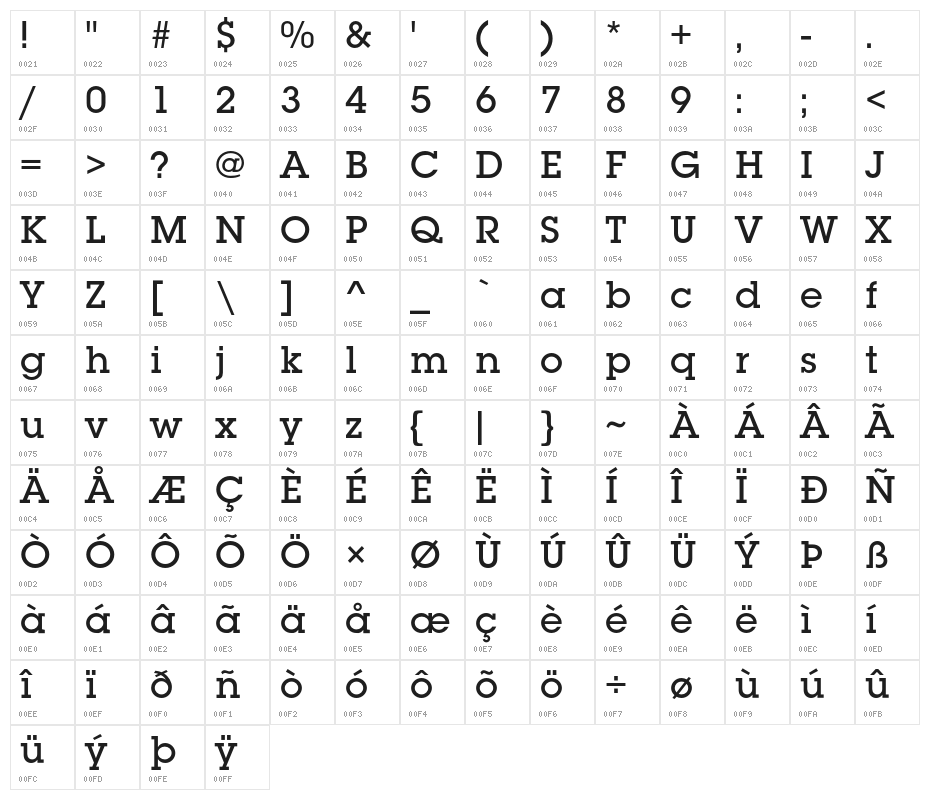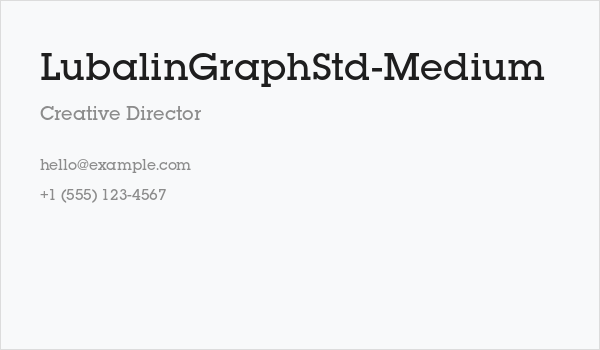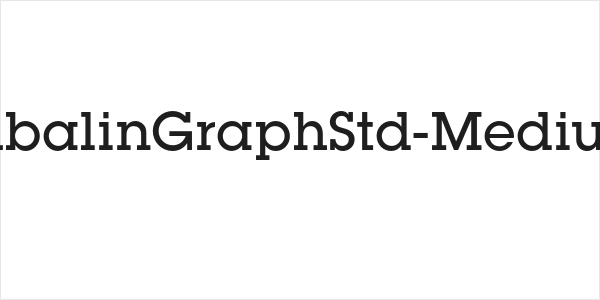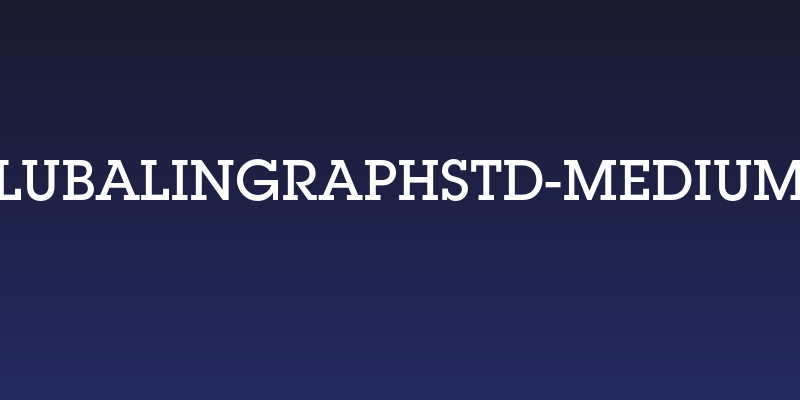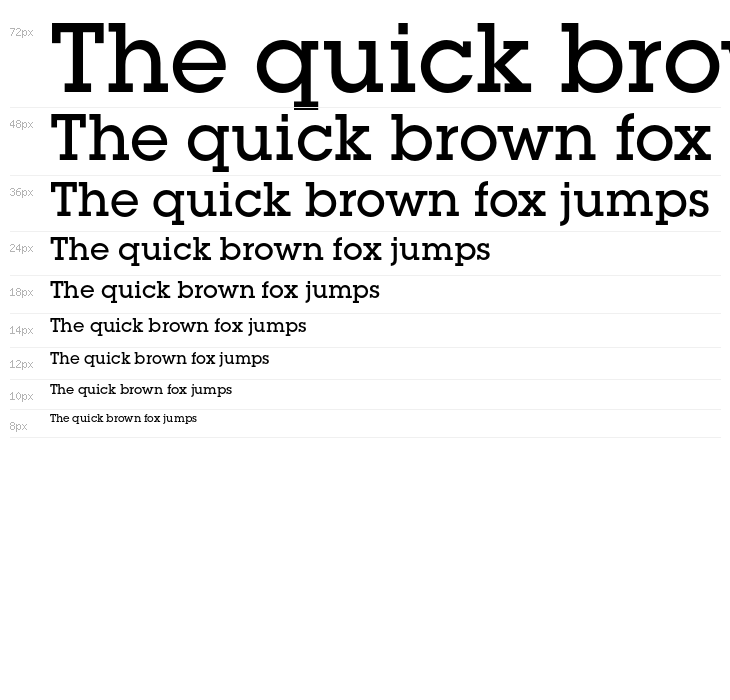
LubalinGraphStd-Medium Font
LubalinGraphStd-Medium Description
This font features a geometric slab serif design with a strong, structured appearance. The characters are well-balanced, with consistent stroke widths that give it a solid and reliable feel. The uppercase letters are bold and commanding, while the lowercase letters maintain a harmonious flow. The numerals are clear and legible, making them suitable for various applications. The special characters are distinct and integrate seamlessly with the rest of the typeface. Overall, this font exudes a modern yet timeless quality, making it versatile for both digital and print media.
| Proposed Projects | Ideal for branding, editorial design, advertising, and signage. |